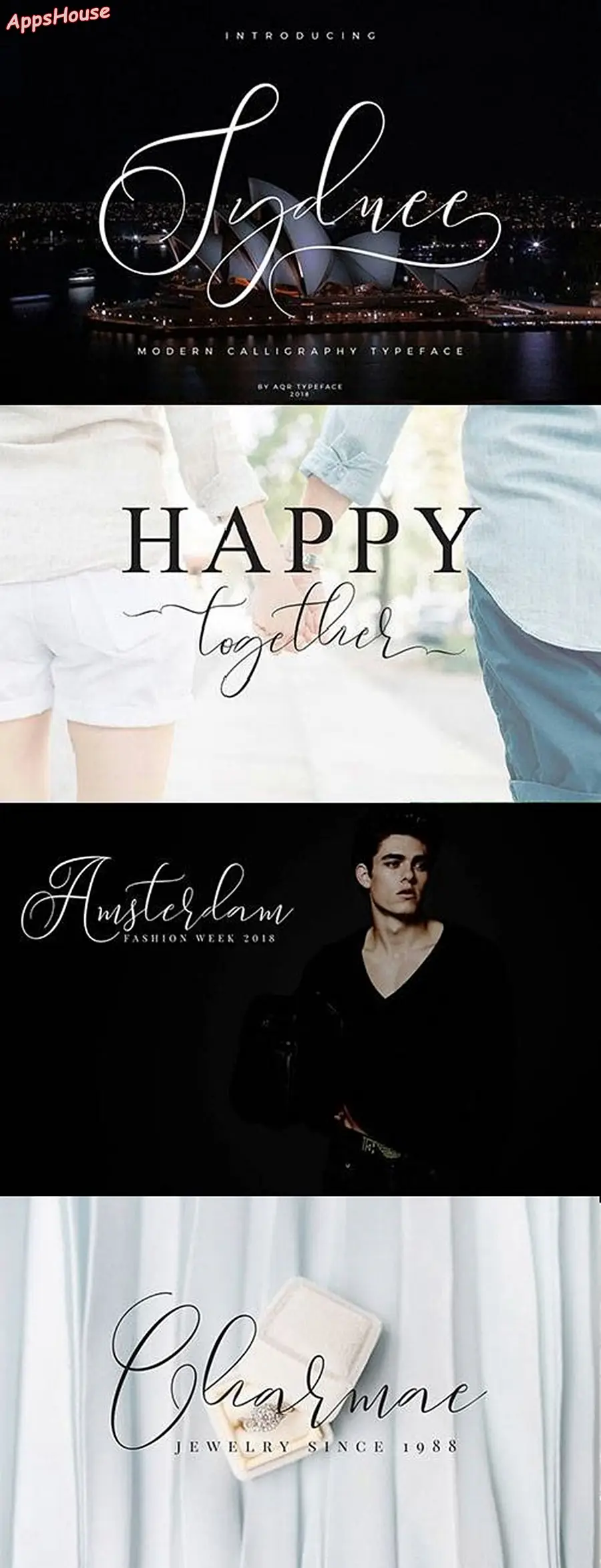
Syndee Modern Calligraphy Script Font
The Syndee Modern Calligraphy Script Font is a beautifully crafted typeface that brings a touch of elegance and sophistication to your projects. With its flowing lines and stylish curves, this font is perfect for a variety of applications, including branding, invitations, and digital designs.
• Stylish script design
• Style: Modern Calligraphy
Ideal for creating logos, wedding invitations, greeting cards, and other printed materials. The distinct style of Syndee adds a personal touch to any design project.